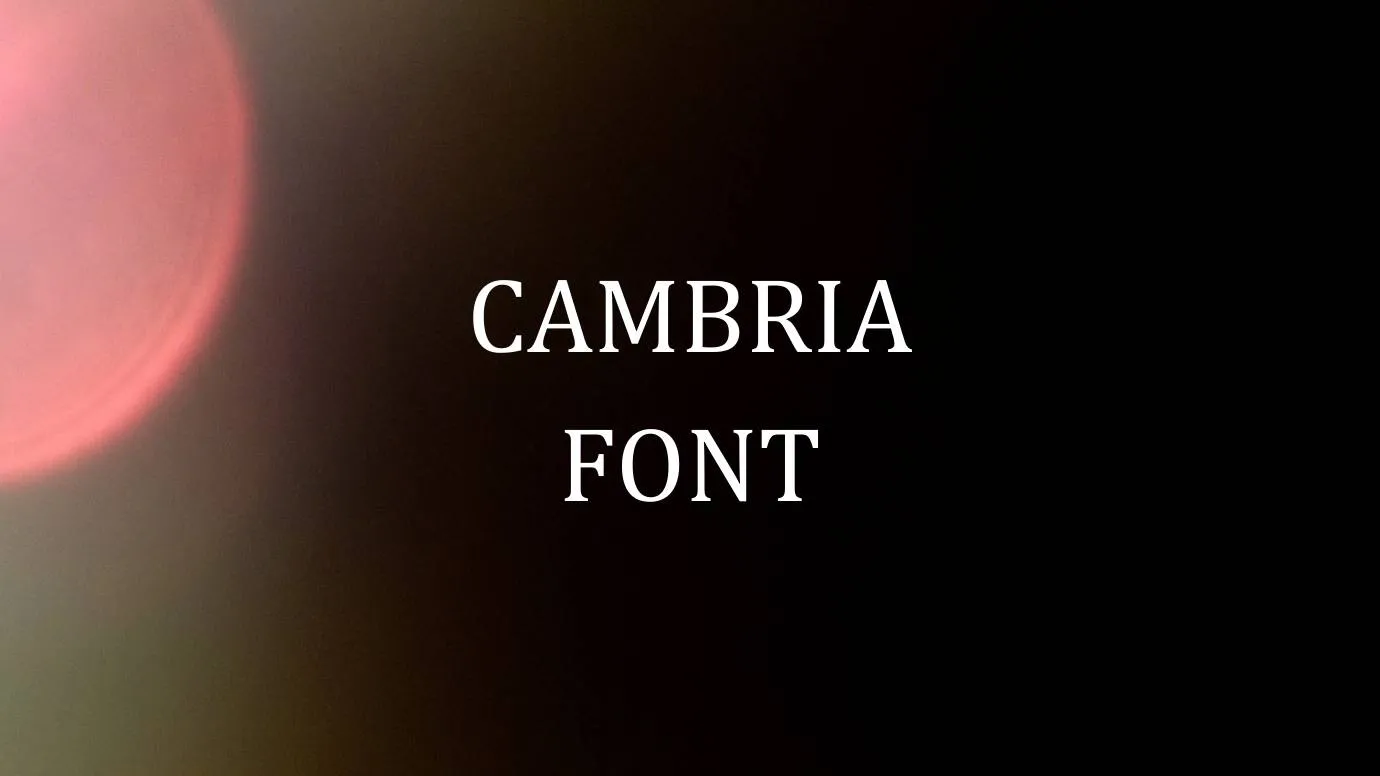
Cambria Font Family is a serif typeface that is a mixture of old and modern style fonts. There is a long list of designers who have worked on this transitional typeface, including Steve Matteson. Microsft and Tro Typeworks founded this typeface for everyone’s use in 2007.
Cambria Font
NameCambria Font
DesignerSteve Matteson, Robin Nicholas, Jelle Bosma
FoundryMicrosoft Typography
TypeSerif
Date Released2004